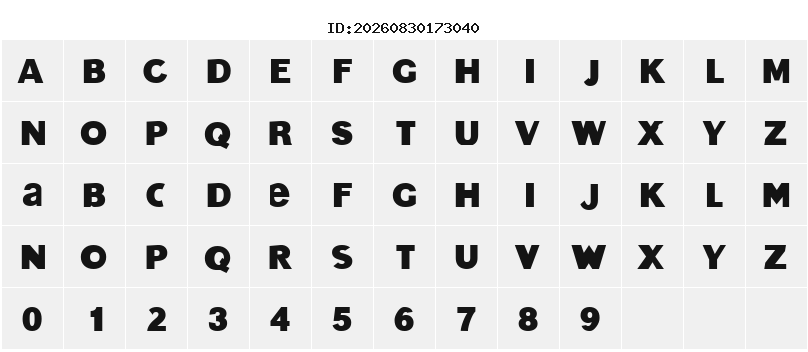
Texas Funeral Preview
• Font Name: Texas Funeral
• Full Font Name: Texas Funeral
• Designer: thomas {THS} schostok
About Texas Funeral.ttf
Texas Funeral.ttf is a modern, elegant sans-serif font designed for ultimate readability and visual harmony. Perfect for branding, headlines, web design, and print materials.